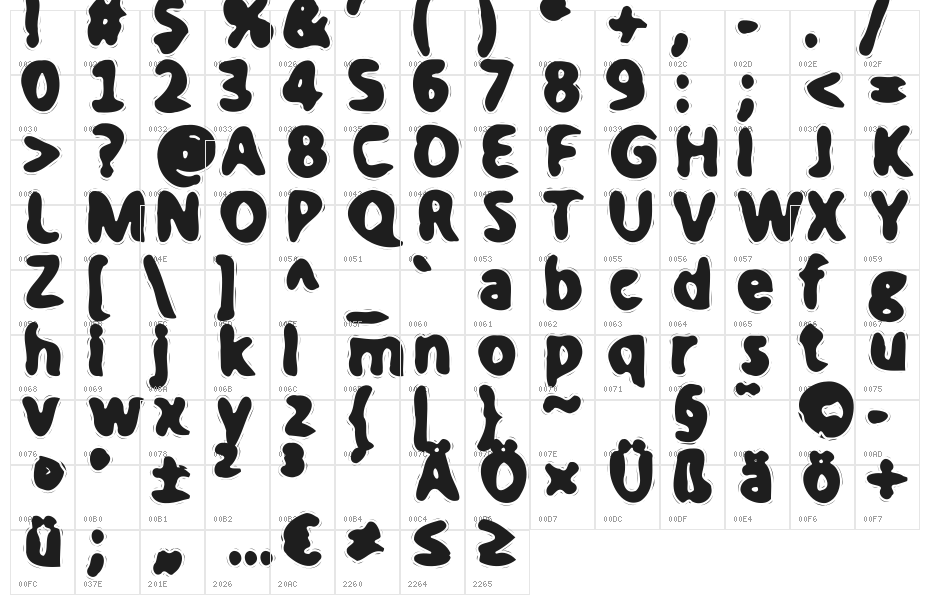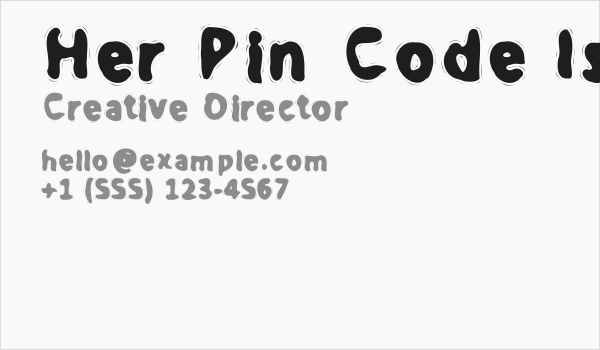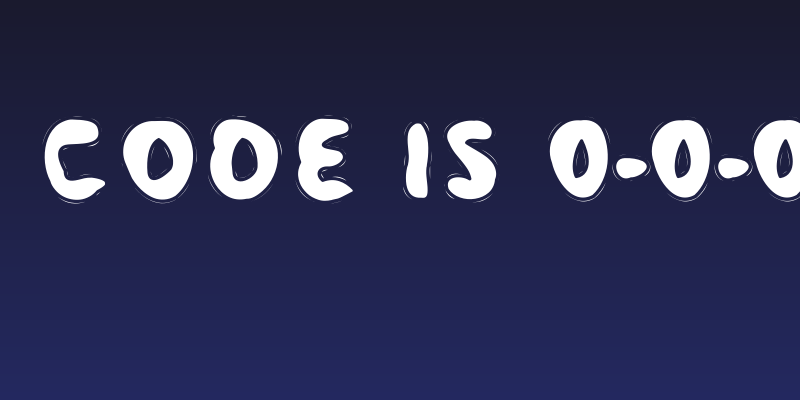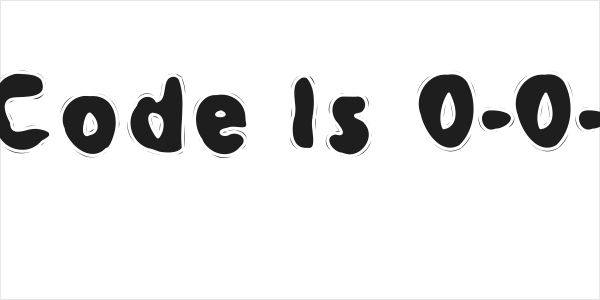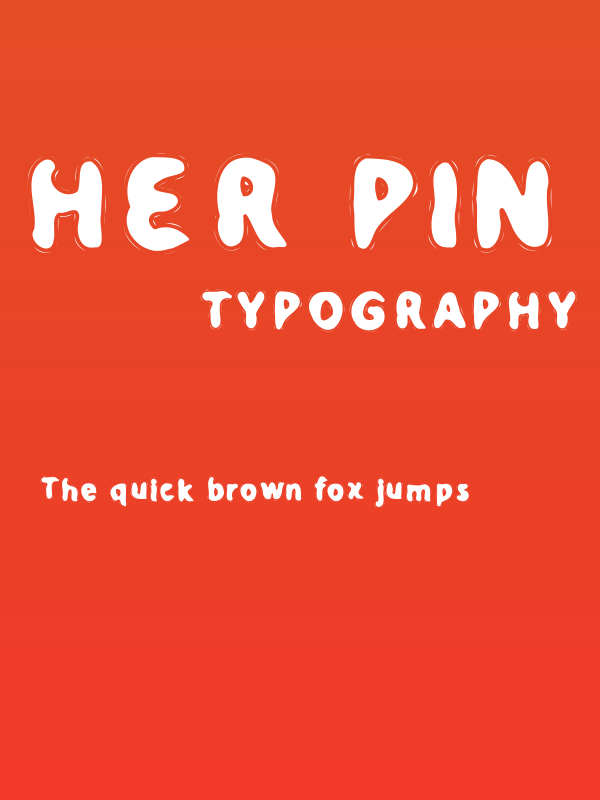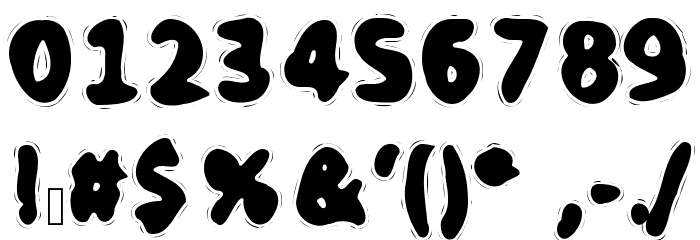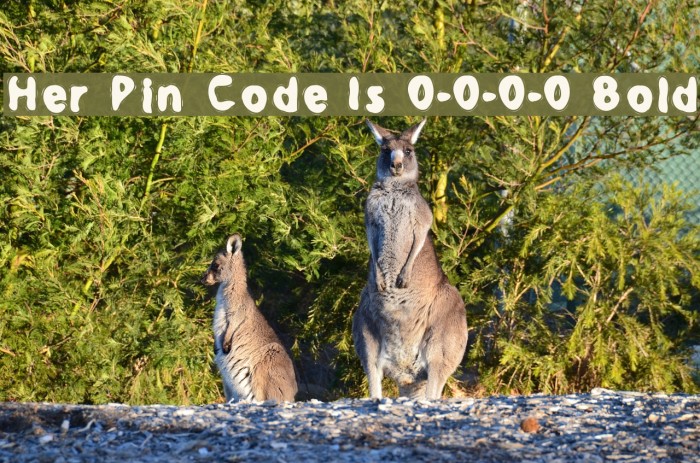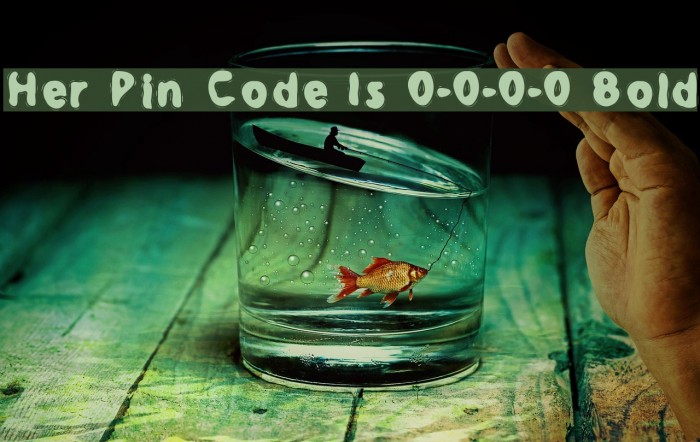
Her Pin Code Is 0-0-0-0 Bold Font
Her Pin Code Is 0-0-0-0 Bold Description
This playful and bold font features a unique bubble-like appearance with thick, rounded strokes and a shadow effect that gives it a three-dimensional look. The characters are uniformly bold, with a consistent thickness throughout, creating a strong visual impact. The rounded edges and smooth curves contribute to a friendly and approachable feel, making it suitable for informal and creative projects. The font maintains legibility despite its decorative style, with clear distinctions between each character. The numbers and special characters are designed to match the playful aesthetic, ensuring consistency across all elements.
| Overall Style | Playful |
| Use Case | Logos, Headlines, Posters |
| Proposed Projects | Ideal for children's books, playful branding, party invitations, and creative posters. |